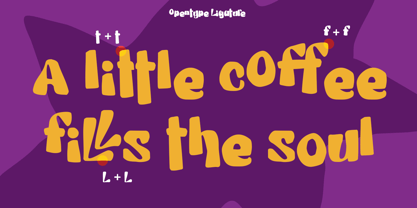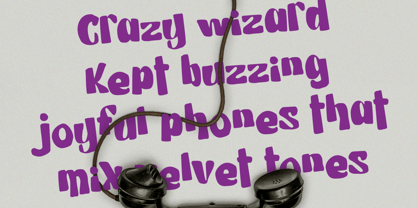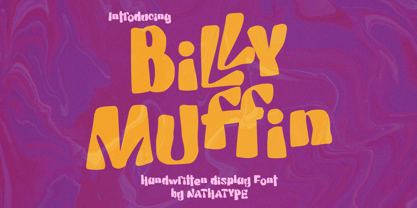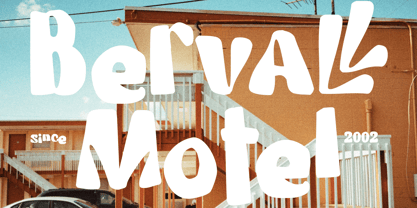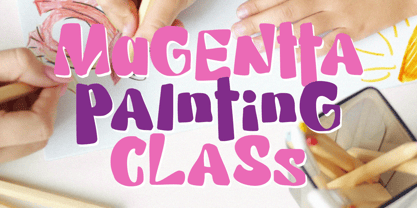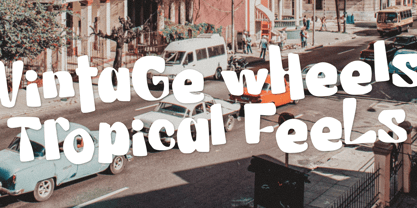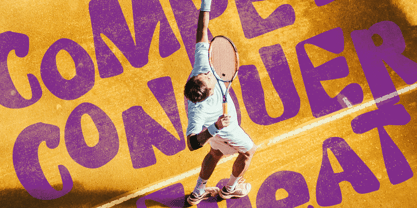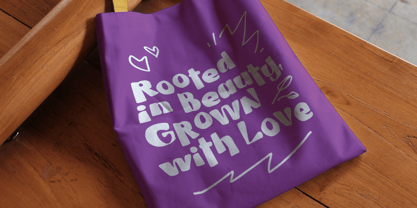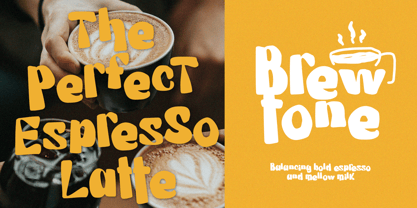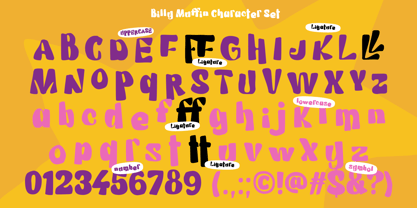
Billy Muffin
by Nathatype
The Billy Muffin Font Family was designed by Donis Miftahudin and published by Nathatype. Billy Muffin contains 1 styles. More about this family
Billy Muffin is a bold handwritten display font that captures the fun, imperfect charm of real handwriting. Designed with rounded letter shapes and irregular outlines, this font brings a warm, playful, and organic feel to your designs. Its bold weight ensures strong visibility, while the uneven strokes and quirky forms give it a natural, handcrafted personality that stands out in any creative project. In addition, enjoy the features here. Features: Alternates Ligatures Multilingual Supports PUA Encoded Numerals and Punctuations Billy Muffin fits in branding, quotes, name cards, apparels, logos, posters, and many more designs. Find out more ways to use this font by taking a look at the font preview. Thanks for purchasing our fonts. Hopefully, you have a great time using our font. Feel free to contact us anytime for further information or when you have trouble with the font. Thanks a lot and happy designing.
Designers: Donis Miftahudin
Foundry: Nathatype